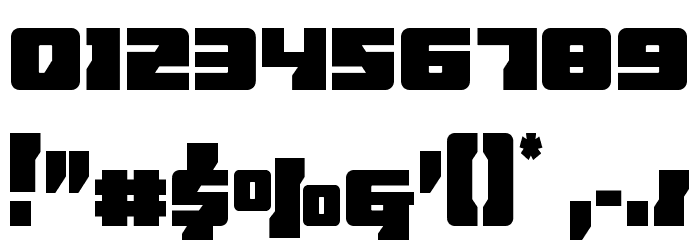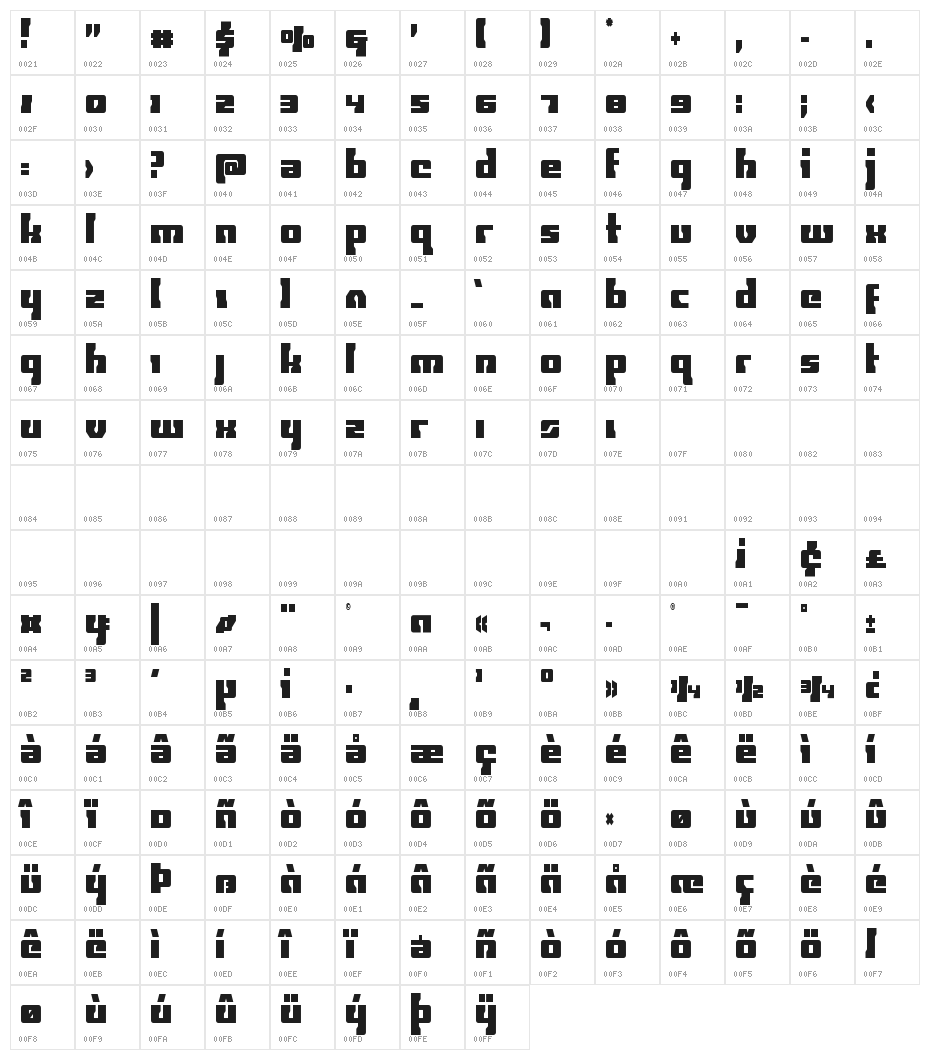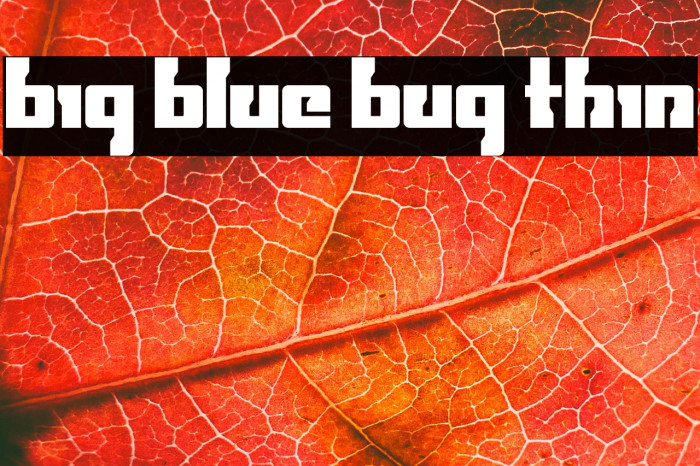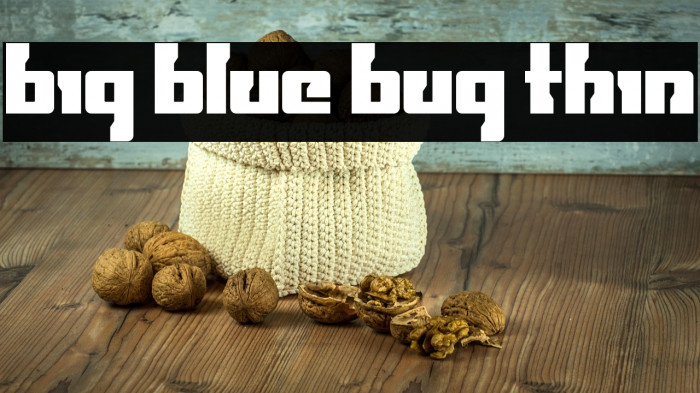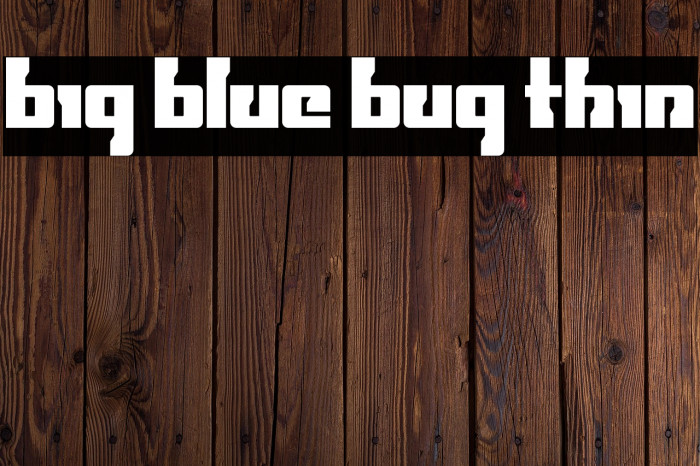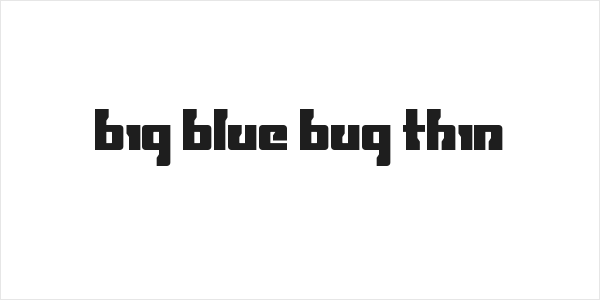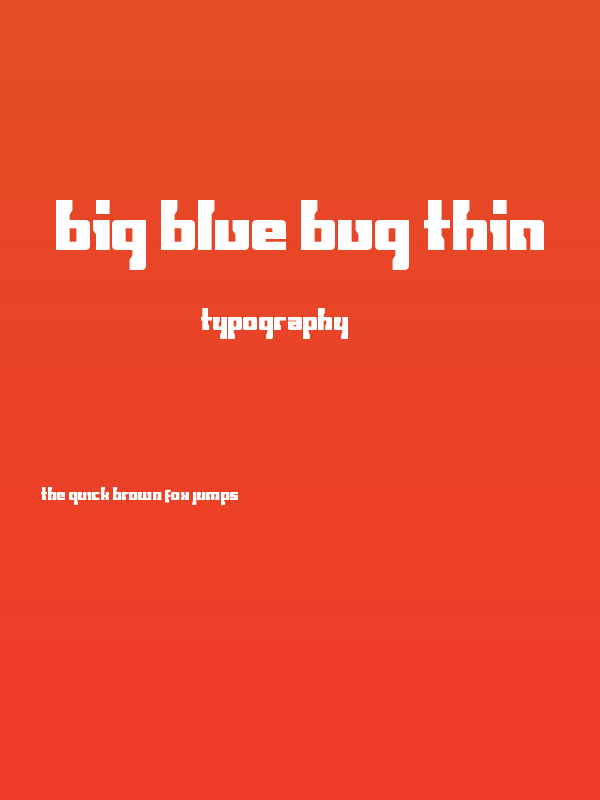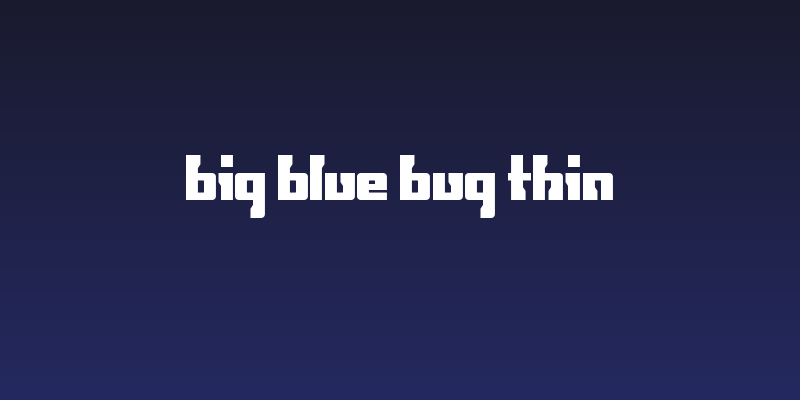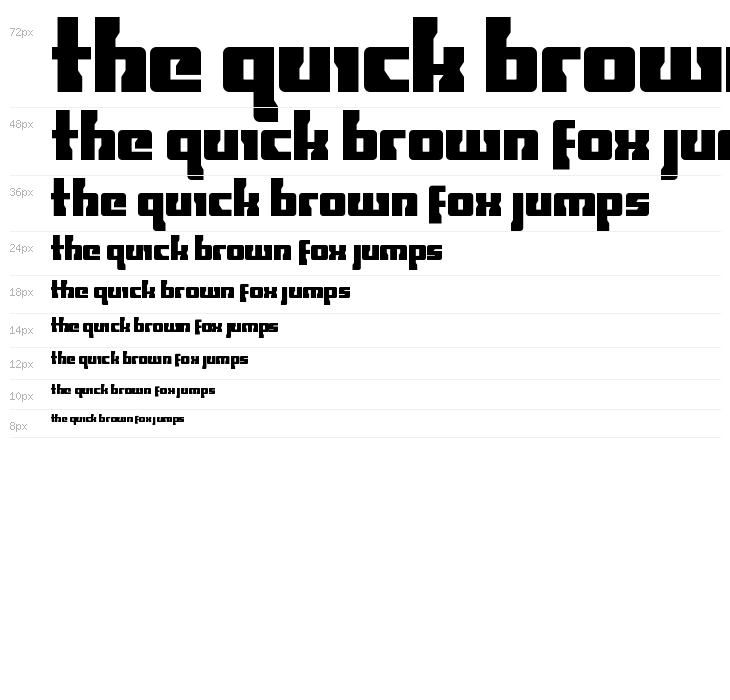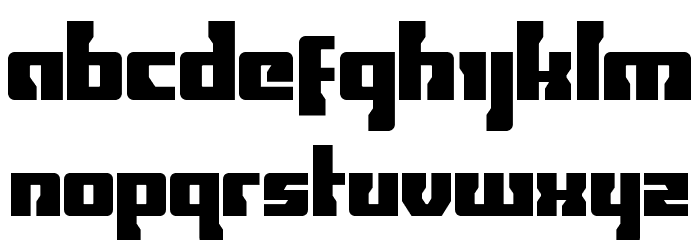
Big Blue Bug Thin Font
Big Blue Bug Thin Description
This font features a bold, geometric design with a strong presence. The characters are blocky and angular, giving a futuristic and industrial feel. The uppercase and lowercase letters maintain a consistent height, creating a uniform appearance. The numbers and special characters follow the same design principles, ensuring a cohesive look across all elements. The font's thick strokes and sharp edges make it highly legible and impactful, suitable for attention-grabbing designs.